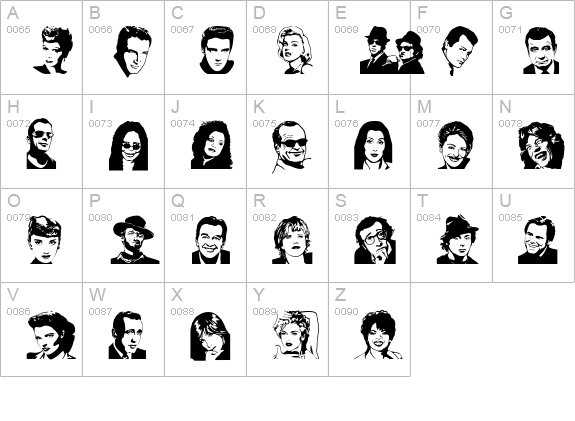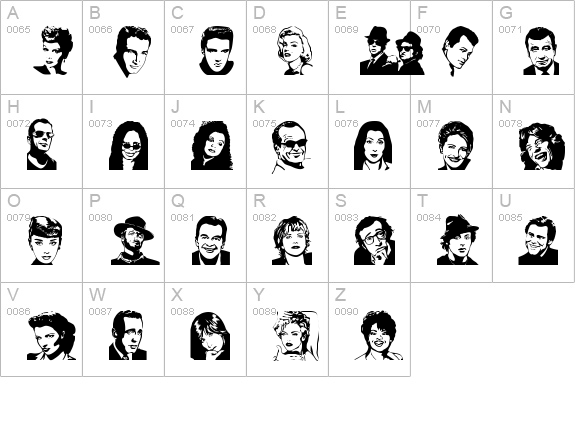
FamousFolksRegular Font Details
FamousFolksRegular font captures the essence of elegance and sophistication with its timeless design. This versatile font is perfect for a wide range of projects, from invitations to branding to social media graphics. With its clean lines and classic aesthetic, FamousFolksRegular exudes a sense of refinement that will elevate any design. Best of all, FamousFolksRegular is available for free download at FontsMarket.com. This means you can easily add this stunning font to your collection without any cost. So why wait? Download FamousFolksRegular today and start creating beautiful designs that stand out from the crowd.